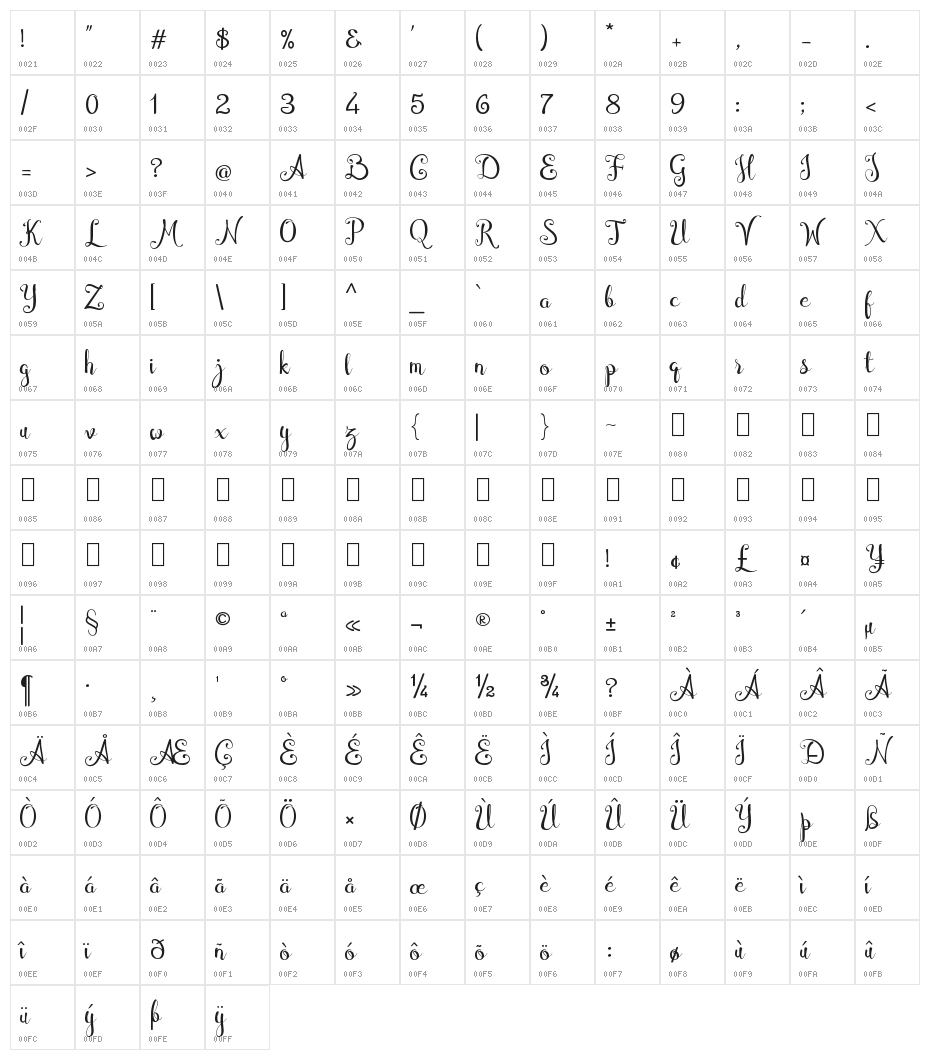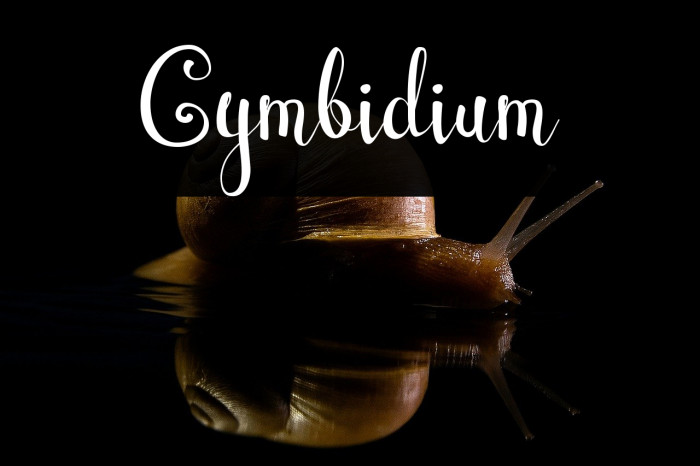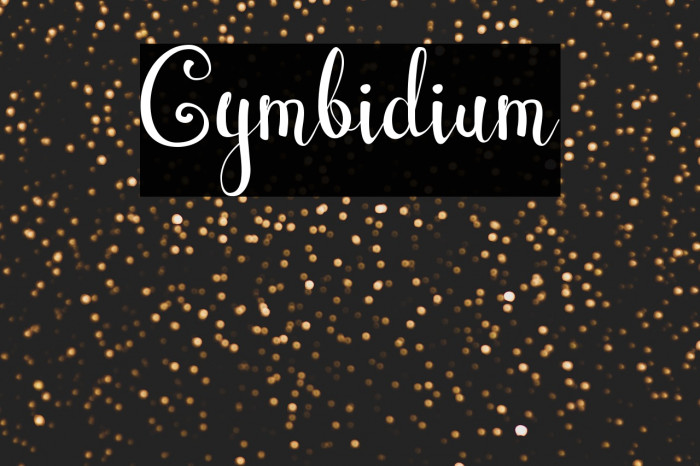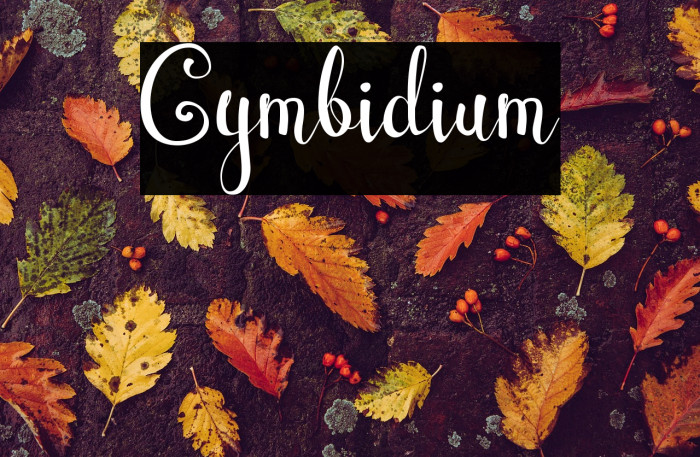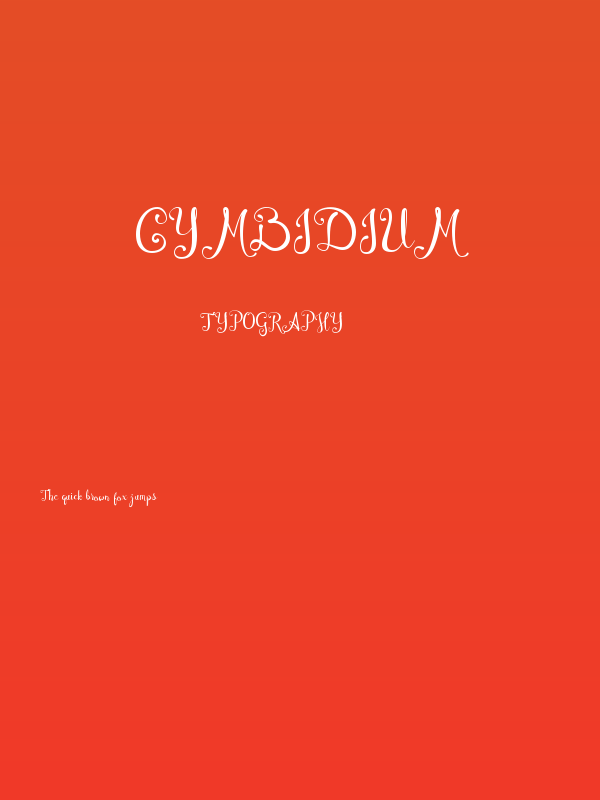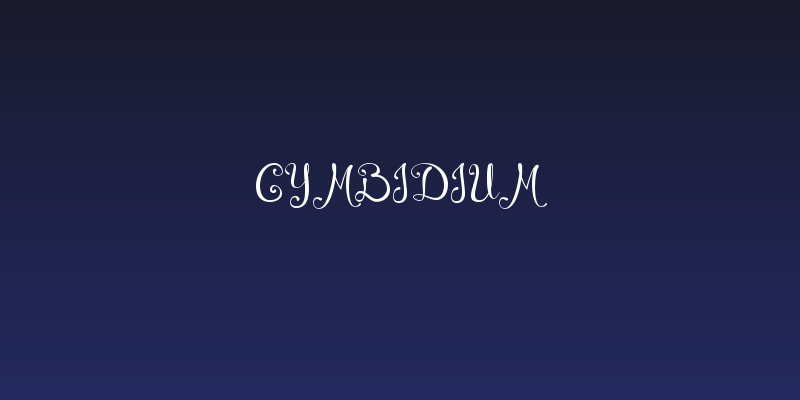
Cymbidium Font
Cymbidium Description
This font is a decorative script style that exudes elegance and charm. The uppercase letters are characterized by their intricate loops and swirls, giving them a whimsical and artistic flair. The lowercase letters maintain a consistent flow with a slightly more restrained design, yet they still possess a playful and fluid nature. The numerals are bold and clear, maintaining the decorative theme without sacrificing readability. Special characters are crafted with the same attention to detail, ensuring a cohesive look across all glyphs. This font is perfect for projects that require a touch of sophistication and creativity.
| Use Case | Logos, Invitations, Artistic Designs |
| Proposed Projects | Ideal for wedding invitations, greeting cards, branding, and artistic posters. |